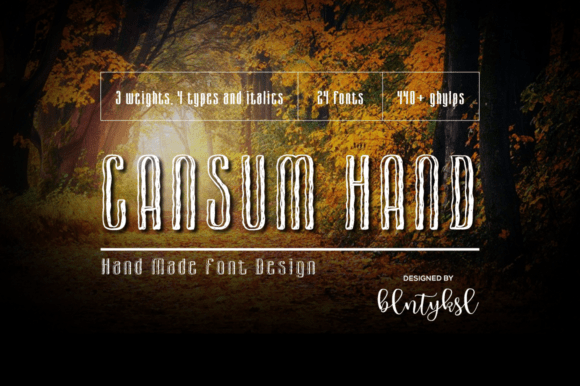
Introducing Cansum Hand: The Perfect Font for Outdoor and Nature-Themed Designs
Have you ever been in the middle of a design project, and suddenly, you’re stuck on finding the perfect font? I recall a recent experience where I was working on a branding project for an outdoor gear company. The client wanted a font that embodied the rugged, natural beauty of the wilderness, but I was struggling to find something that fit the bill. That’s when I stumbled upon Cansum Hand, a dramatic, hand-made font design that has become my go-to for outdoor and nature-themed projects.
A Personal Review: What I Love About Cansum Hand
Cansum Hand has quickly become a favorite in my design toolkit, and here’s why:
- ✨ Rugged, natural texture: The font’s organic, weathered appearance gives it a unique, authentic feel that’s perfect for outdoor and nature-themed designs.
- ✅ Highly versatile: With 3 weights, 4 types, and italics, Cansum Hand can be used for a wide range of projects, from rustic logos to poster headlines and album art.
- 🔍 Over 440 glyphs: The font includes a vast character set, ensuring you have plenty of options for customization.
- 💻 PUA-encoded for easy access: All glyphs, swashes, and alternate characters are easily accessible, making it simple to customize your creations.
While Cansum Hand is an excellent font, there are a few minor quirks to be aware of:
- 🤔 Learning curve: With so many glyphs and features, it may take some time to get familiar with the font’s capabilities.
- ⚠️ Legibility at small sizes: As with many handwritten fonts, Cansum Hand may not be the best choice for body text or small font sizes.
The Backstory Behind Cansum Hand
Cansum Hand was designed with the great outdoors in mind. The font’s creator wanted to capture the rugged, natural beauty of the wilderness and bring it to life in a typographic form. With its organic texture and powerful vertical presence, Cansum Hand is the perfect choice for outdoor and nature-themed designs.
| Q: What type of projects is Cansum Hand best suited for? | A: Cansum Hand is perfect for outdoor and nature-themed designs, such as rustic logos, adventure branding, poster headlines, and album art. |
| Q: How many glyphs does Cansum Hand include? | A: Cansum Hand includes over 440 glyphs, providing a wide range of options for customization. |
| Q: Is Cansum Hand PUA-encoded? | A: Yes, Cansum Hand is PUA-encoded, making it easy to access all glyphs, swashes, and alternate characters. |